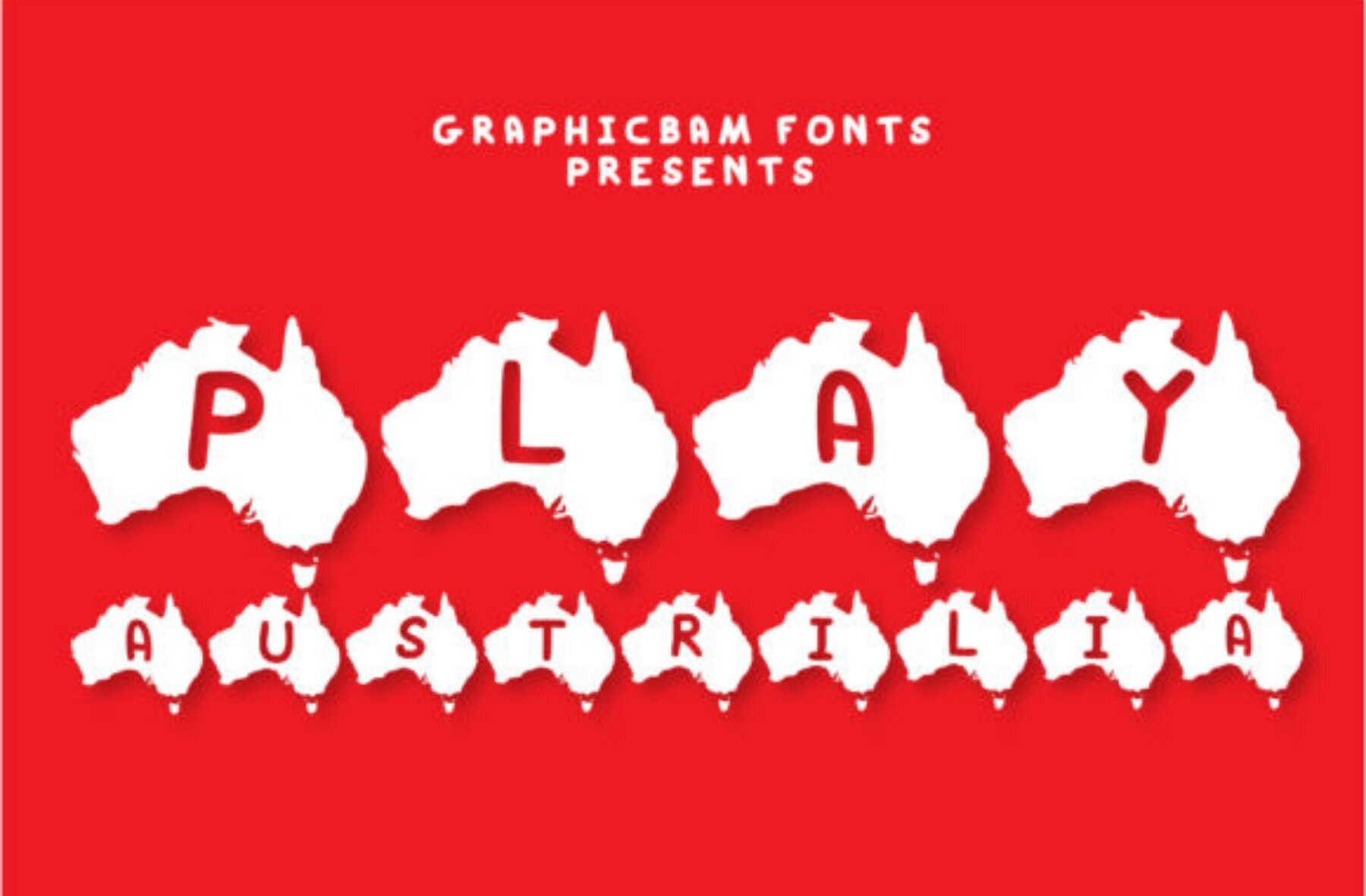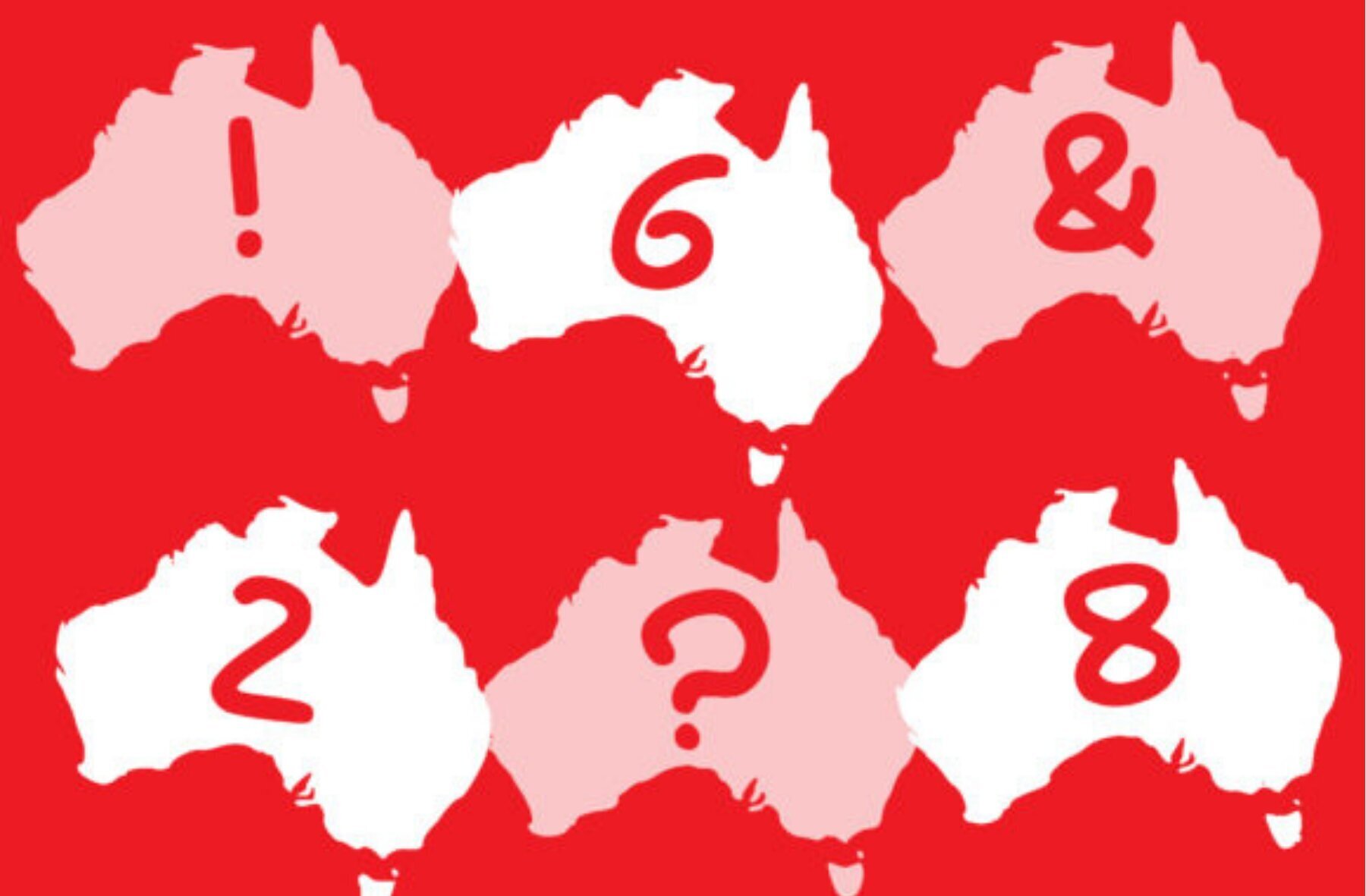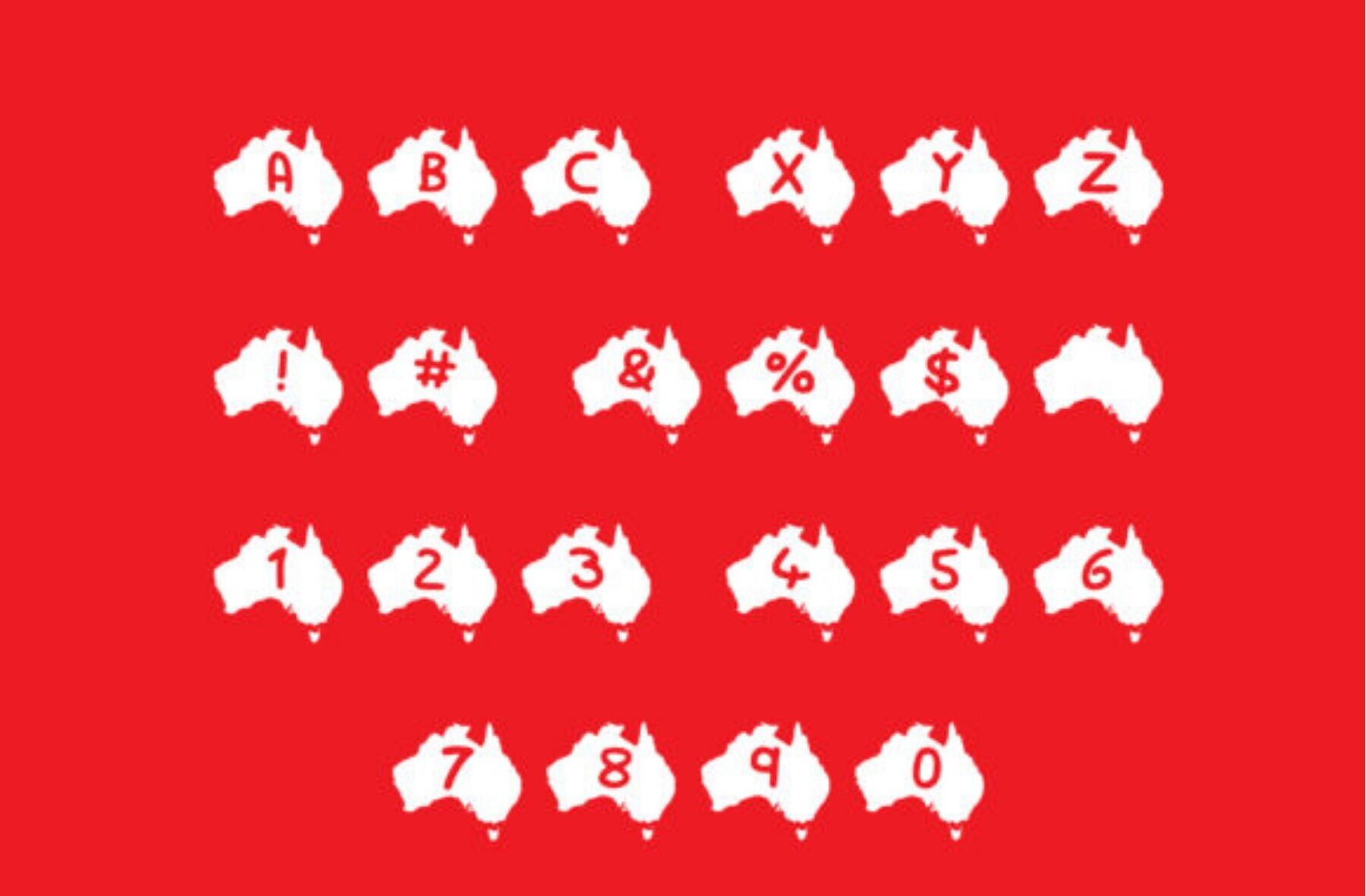
Play Austrilia Font
Play Austrilia Regular
Infuse your designs with the vibrant spirit of Australia using the Play Austrilia font. Each character is artistically crafted to feature elements inspired by the Land Down Under, making it a captivating choice for any project. With its unique decorative style, this font promises to add an intriguing visual dimension to your designs. Whether you're designing marketing materials or crafting personal projects, Play Austrilia is poised to enhance your creativity. Experience the charm of Australia with every letter you use.Play Austrilia Font